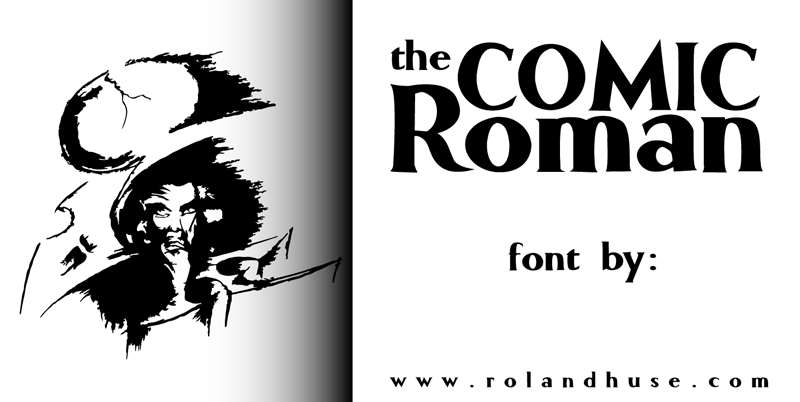
Font name: | Comic Roman |
COMIC ROMAN is a hand drawn font interpretation based on an earlier font of mine "Freehand Roman" For further information feel free to contact me via myhandwritings@gmail.com also about the following: - Further characters or language extensions - Discovering kerning problems while using - Or any other question. This font is free for PERSONAL use only. For any commercial use (anything you make money from), you must send a paypal donation. You MAY NOT sell my fonts or claim them as your own. You MAY NOT edit or rename my fonts. You MAY redistribute my fonts if: 1. You credit me (Roland Huse). 2. Keep the READ ME file intact within the zip folder. 3. Provide a link back to my website (www.rolandhuse.com). Thank you & I hope you like this font, \m/ Roland http://www.rolandhuse.com https://www.facebook.com/pages/Runes-And-Fonts/123221817784772 |